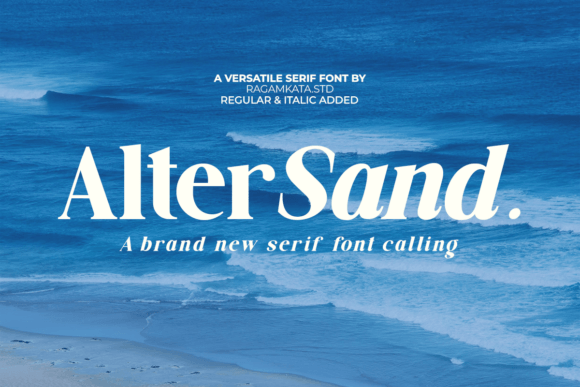
I still remember the frustration of working on a project, hours spent crafting the perfect layout, only to realize that the font I’d chosen just wasn’t cutting it. The client wanted something elegant, yet modern; something that would make their brand stand out. I was on the hunt for a font that exuded sophistication and visual clarity. That’s when I stumbled upon Alter Sand, a modern and versatile serif font that has since become a staple in my design toolkit.
Alter Sand: A Designer’s Dream
Alter Sand is a stunning serif font that boasts both regular and italic styles, making it perfect for a wide range of design projects, from branding and editorial layouts to posters and product packaging. Its elegant lines and precise letterforms make it an excellent choice for designers, crafters, and creative hobbyists looking to elevate their designs.
- ✨ Elegant and modern design that’s perfect for high-end branding
- ✅ Versatile and adaptable to various design projects
- 💡 Excellent legibility, even at smaller font sizes
- 🎨 Beautifully crafted italic style that adds a touch of sophistication
While Alter Sand is an exceptional font, there are a few minor quirks to be aware of:
- 🤔 Some users may find the font’s x-height a tad too high, which can affect the overall flow of text
- ⚠️ Limited availability of OpenType features, which may limit advanced typographic control
The Story Behind Alter Sand
Alter Sand was designed with the goal of creating a modern and versatile serif font that would cater to the needs of designers and crafters. The design process involved a deep dive into the world of typography, with a focus on creating a font that exuded elegance and visual clarity. The result is a stunning font that is both sophisticated and adaptable.
Q: What type of projects is Alter Sand suitable for?
A: Alter Sand is suitable for a wide range of design projects, including branding, editorial layouts, posters, and product packaging.
Q: Does Alter Sand come with OpenType features?
A: Alter Sand comes with a limited set of OpenType features, but it does include stylistic alternates and glyphs.